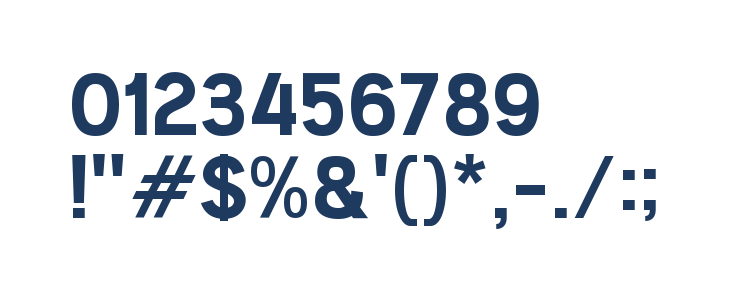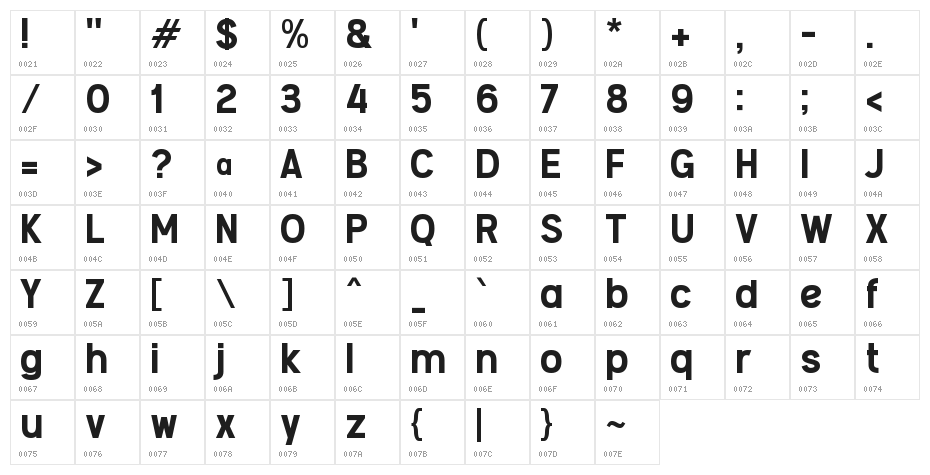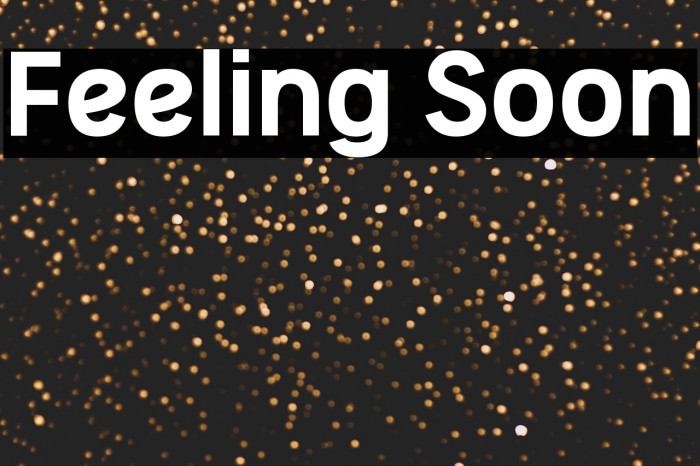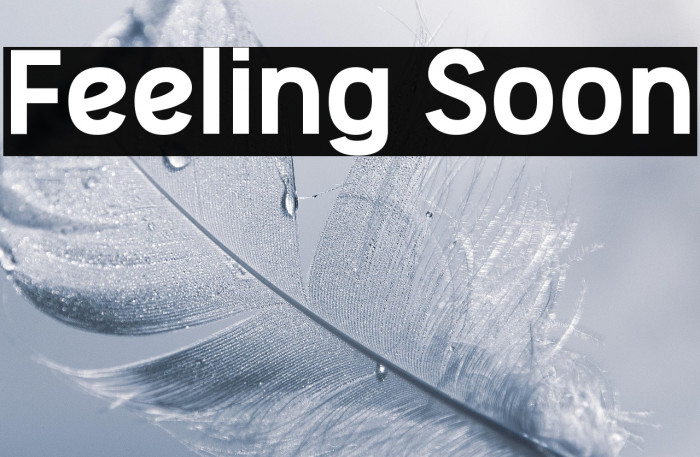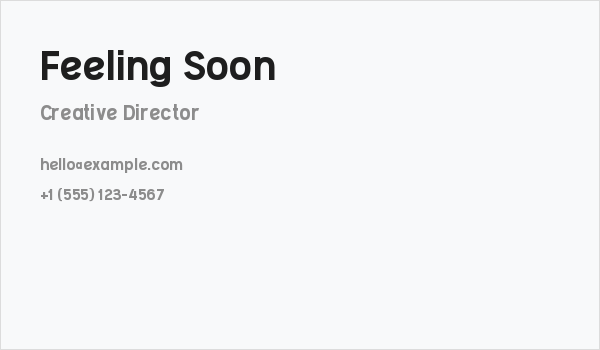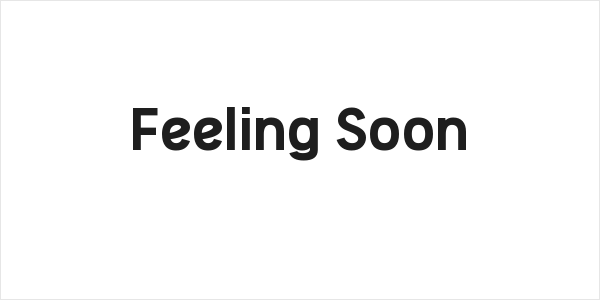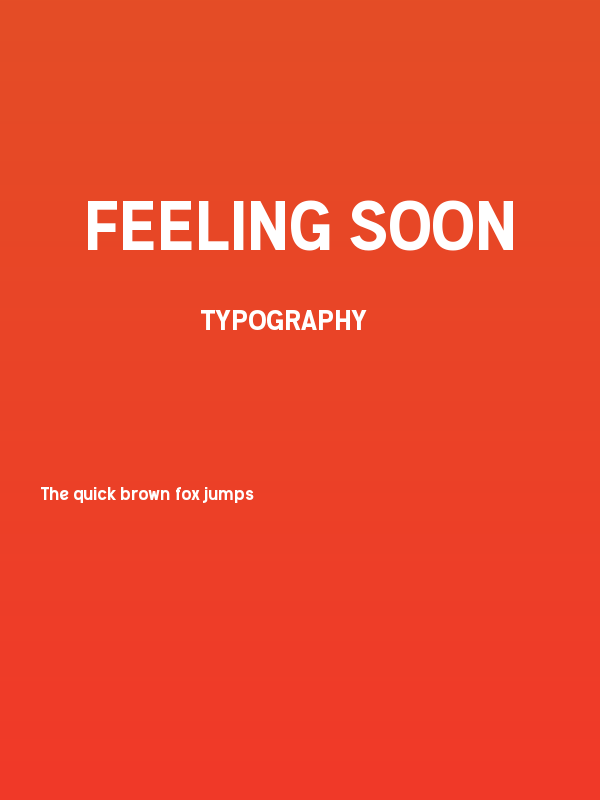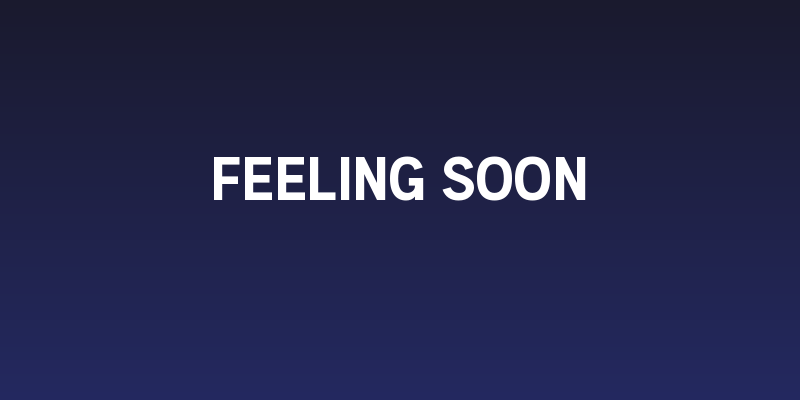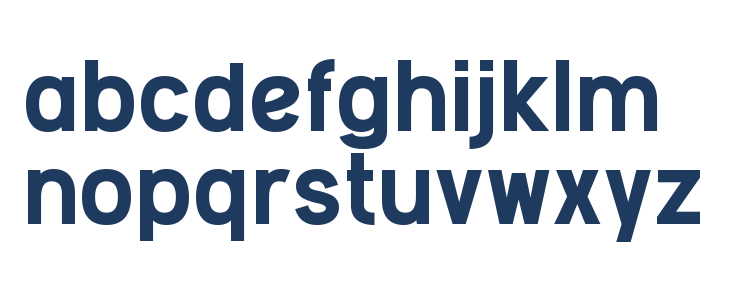
Feeling Soon Font
Feeling Soon Description
This font is a bold, sans-serif typeface characterized by its clean lines and modern appearance. The uppercase letters are uniform in height, providing a strong and assertive look, while the lowercase letters maintain a consistent x-height, ensuring readability. The numerals are clear and distinct, making them suitable for various applications. Special characters are well-defined, adding versatility to the font. The overall design is straightforward yet impactful, making it ideal for both digital and print media.
| Use Case | Headlines, Logos, Digital content |
| Proposed Projects | Ideal for branding, advertising, headlines, and digital content where clarity and impact are essential. |